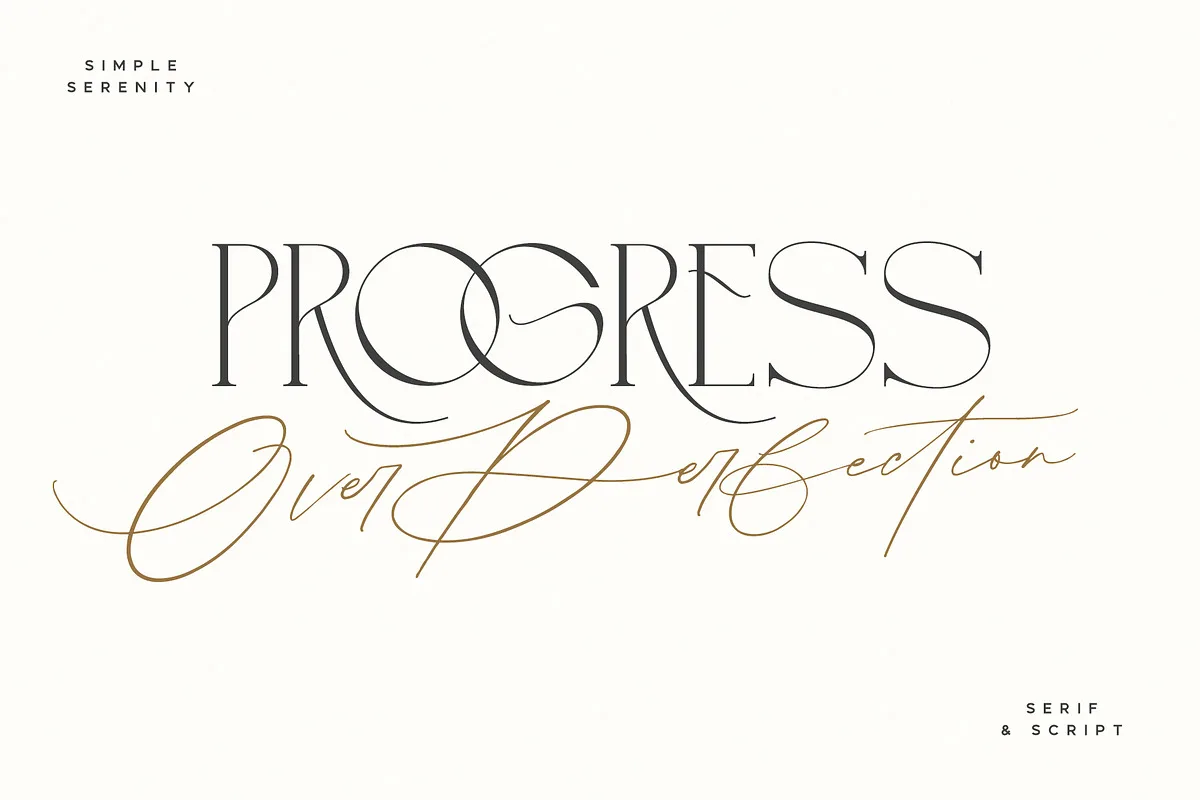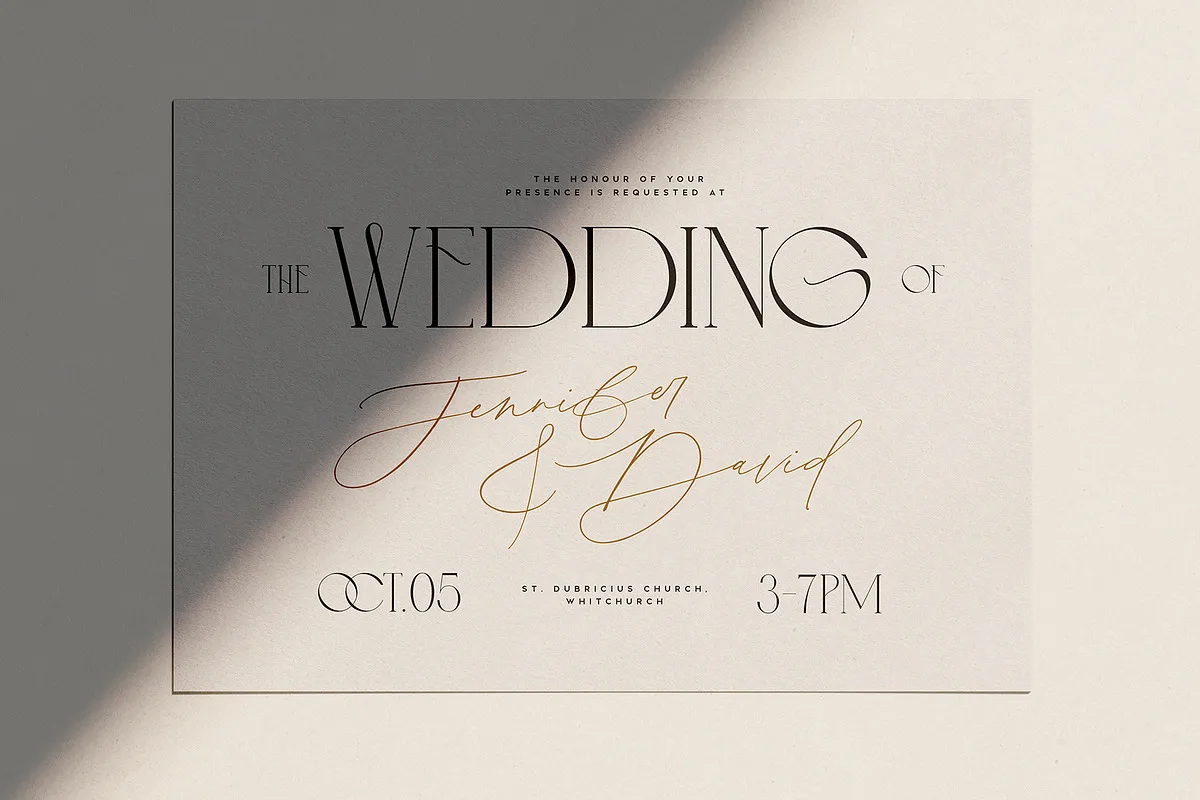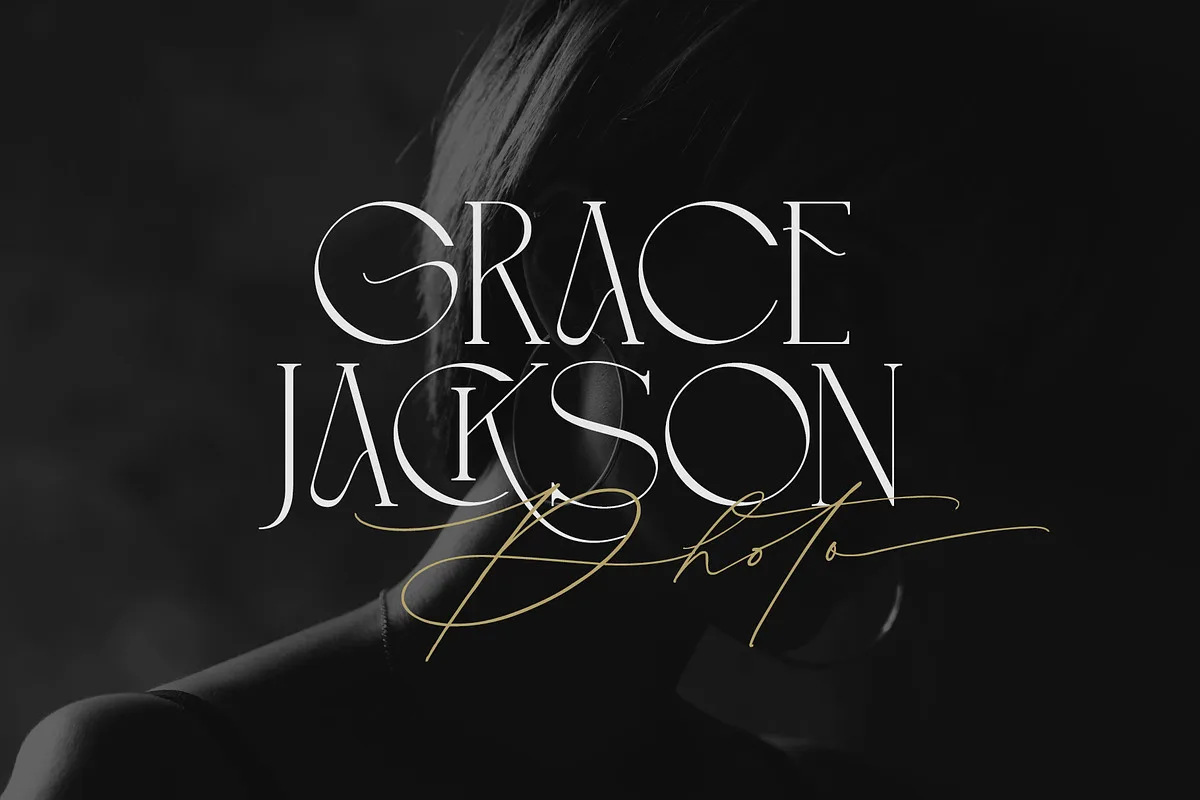
Discover an exquisitely elegant modern typography pairing with the Simple Serenity. This beautiful set combines a contemporary take on a classic serif with a clean & modern fine calligraphy script—creating the perfect pair for stunning logos, wedding designs, quotes, display text and more.
- Simple Serenity Script • A clean, elegant hand-drawn script font containing upper & lowercase characters, all punctuation and numerals. Contains 50 ligatures to help the text flow naturally and add a custom-made feel. Includes 9 alternate characters for d,k,f,g,h,i,j,t,y which have extra flourishes. Also includes beginning and end swashes for every lowercase letter.
- Simple Serenity Serif • A modern take on a classic serif font. Contains uppercase-only characters, all punctuation & numerals. Includes 14 ligatures for extra flair and uniqueness, as well as 10 alternate characters for Q,A,M,E,R,K,U,F,H,W.